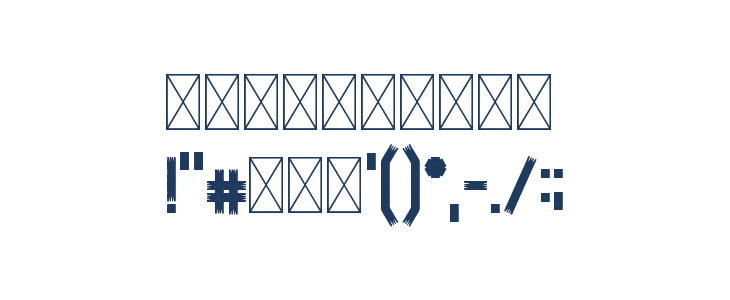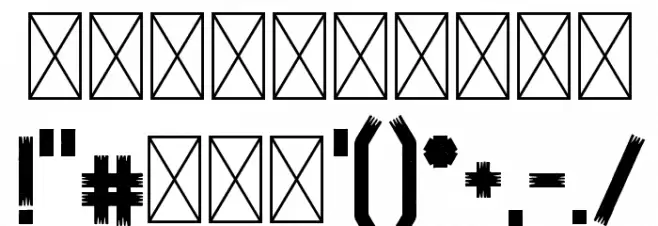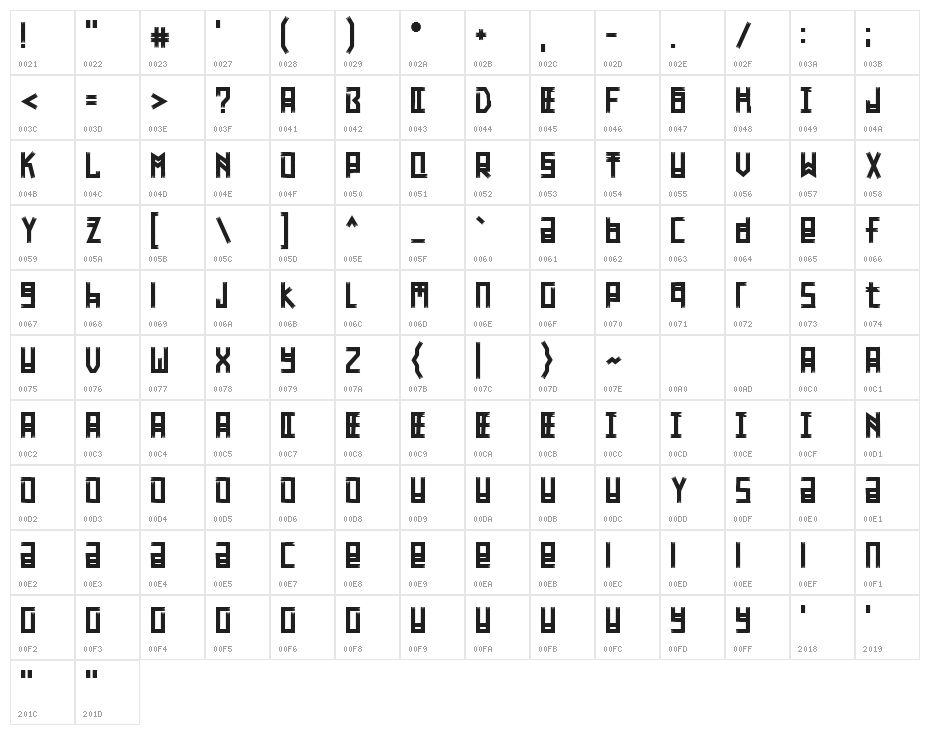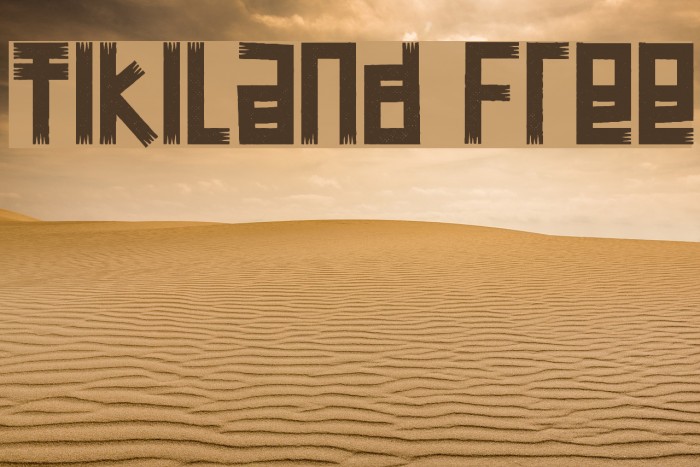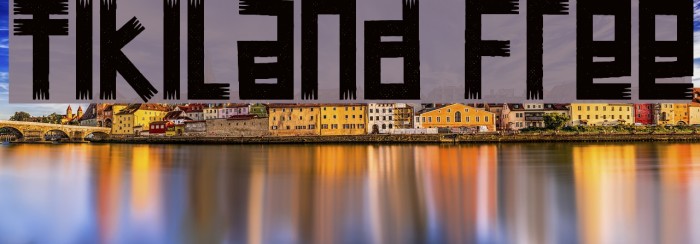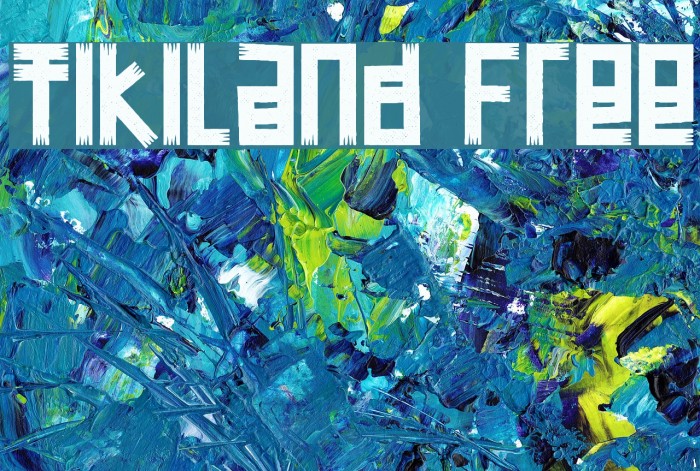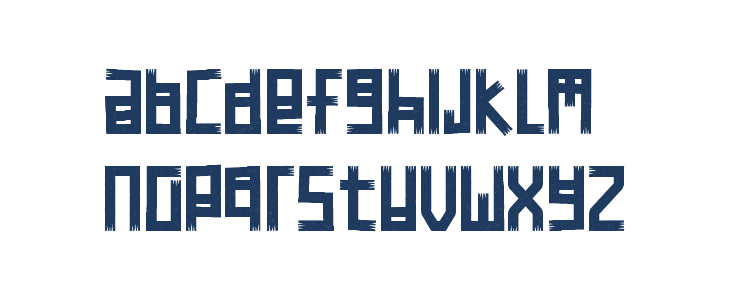
Tikiland Free Font
Tikiland Free Description
This font features a bold, textured design with a tribal or tiki-inspired aesthetic. The characters are blocky and angular, with rough, uneven edges that give them a hand-carved appearance. The uppercase and lowercase letters maintain a consistent style, with the uppercase being slightly more pronounced. The numerals and special characters follow the same design principles, ensuring uniformity across all glyphs. This font's unique style makes it stand out, ideal for projects that require a distinctive, eye-catching typeface.
| Proposed Projects | Ideal for themed event posters, branding for tropical or tiki-themed businesses, and creative design projects that require a unique, standout font. |